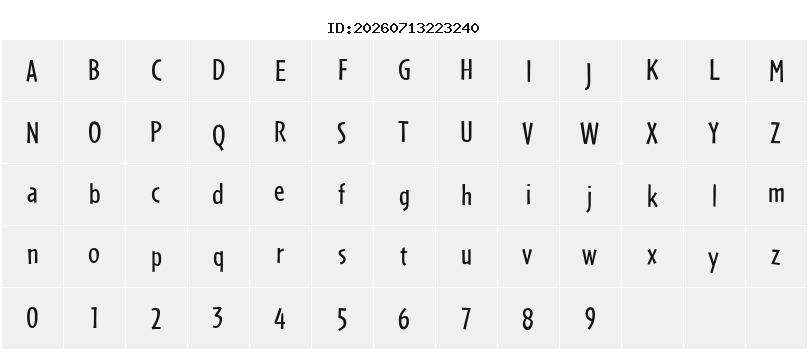
Cafeteria Preview
• Font Name: Cafeteria
• Full Font Name: Cafeteria-Regular
• PostScript Name: Cafeteria-Regular
• Copyright: Copr.1993, Tobias Frere-Jones. Designed by Tobias Frere-Jones. Produced by The Font Bureau, Inc.
• Manufacturer: Copr. Tobias Frere-Jones. Designed by Tobias Frere-Jones. Produced by The Font Bureau, Inc
About Cafeteria.ttf
Cafeteria.ttf is a modern, elegant sans-serif font designed for ultimate readability and visual harmony. Perfect for branding, headlines, web design, and print materials.